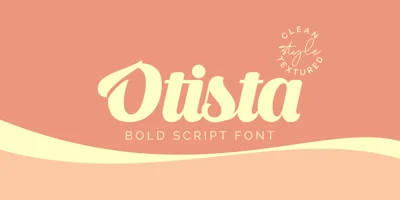
Otista Font
The Otista Font is perfect for automotive branding, transportation companies, motorsport graphics, vehicle dealership materials, racing team logos, automotive magazines, car show promotions, and mechanical engineering presentations. This dynamic typeface works excellently in applications where speed and mechanical precision need to be emphasized, making it ideal for brands in the automotive industry that want to communicate performance, reliability, and cutting-edge engineering innovation.
What makes Otista Font exciting is its sleek aerodynamic design and high-performance aesthetic that captures the essence of modern automotive excellence. The font's streamlined letterforms and precision-engineered character construction create an atmosphere of speed and technical sophistication, making it perfect for automotive brands that want to convey advanced engineering capabilities and performance-driven values. Its bold presence and mechanical precision ensure maximum impact across all automotive marketing applications.
The Otista Font family typically includes light, regular, bold, and black weights, often featuring condensed versions optimized for racing graphics and technical specifications. Many versions include automotive symbols, technical notation characters, and specialized glyphs designed specifically for vehicle documentation, providing designers with comprehensive tools for creating professional automotive communication materials.
For designers working on automotive projects that demand performance credibility and mechanical authority, Otista Font delivers exceptional visual power. Its ability to instantly communicate speed and engineering excellence makes it an invaluable choice for car manufacturers, racing teams, and any project requiring typography that embodies the precision, innovation, and high-performance spirit of the modern automotive industry.